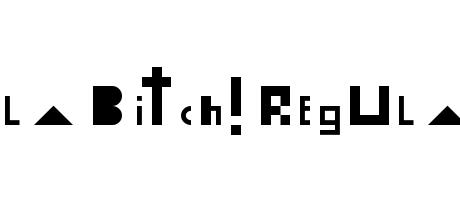
Hola Bitch!
By Ramiro Baldivieso
Hola Bitch! Regular is a playful, slightly chaotic font. It mixes a bold, almost blocky sans-serif style with quirky, irregular letterforms. Some letters are perfectly formed, while others show intentional distortion and pixelation, creating a deliberately imperfect, almost glitch-art feel. The exclamation point adds to the energetic, informal vibe. The overall effect is bold, attention-grabbing, and undeniably unique.